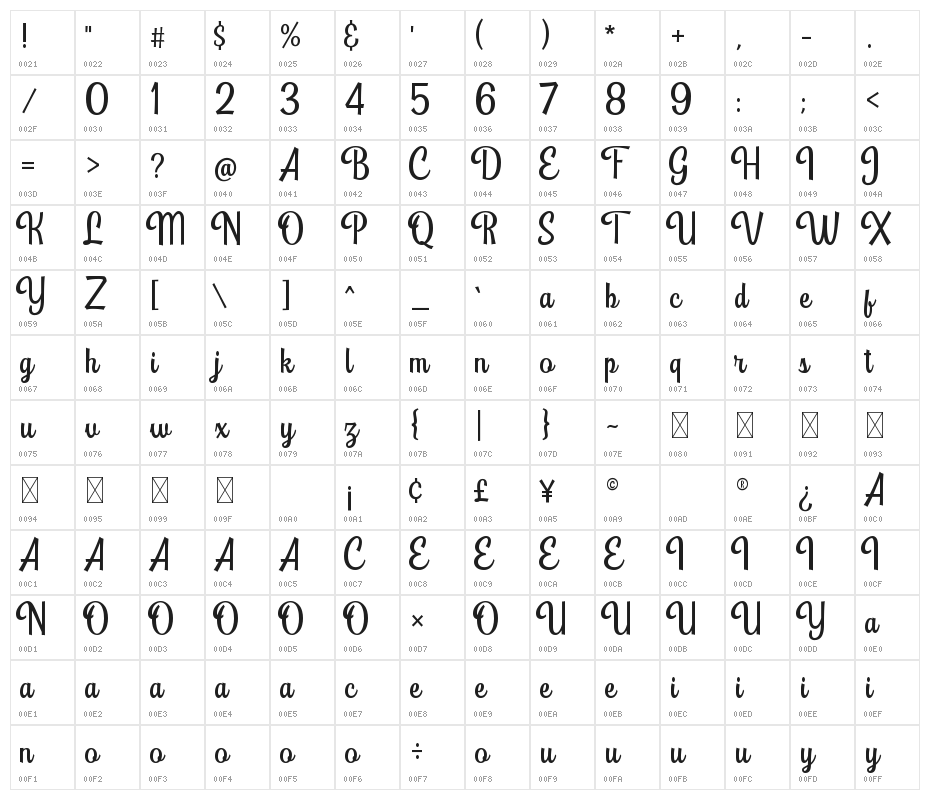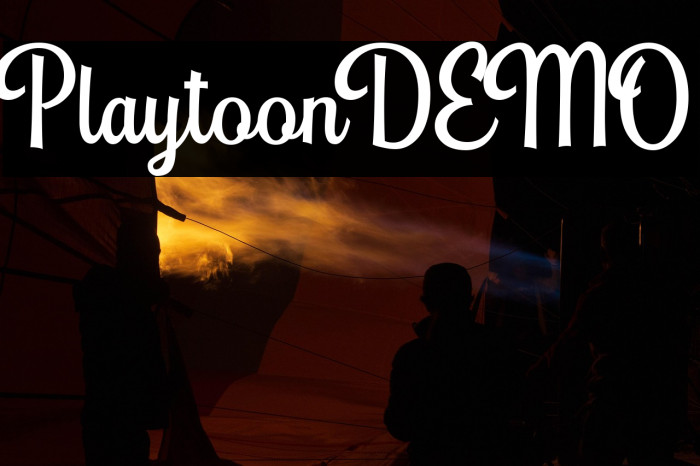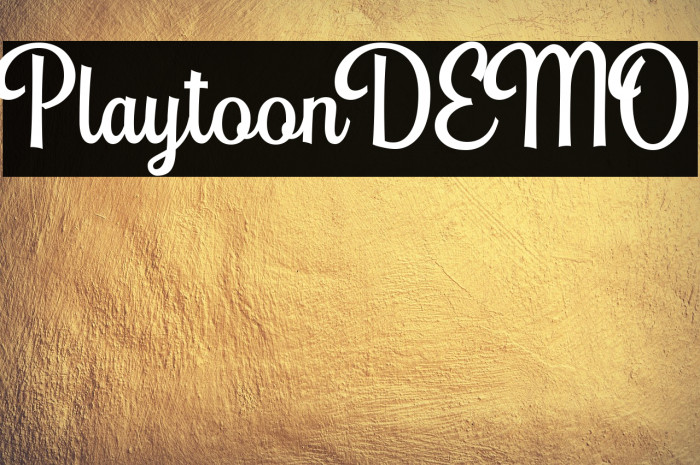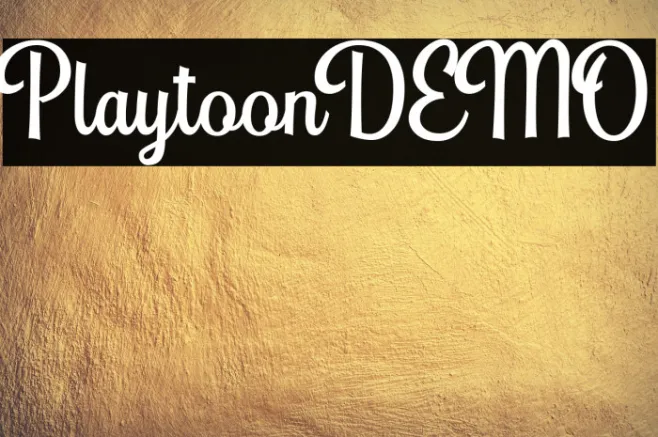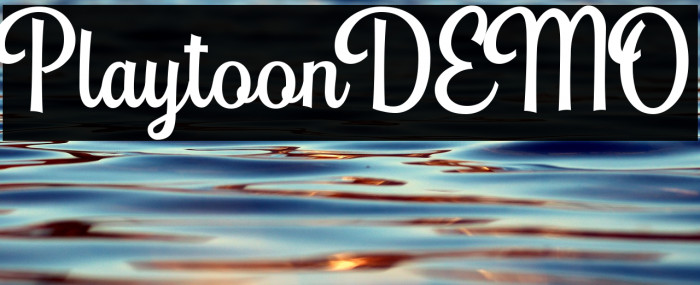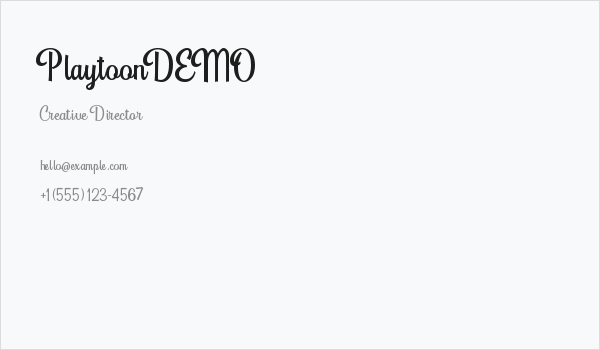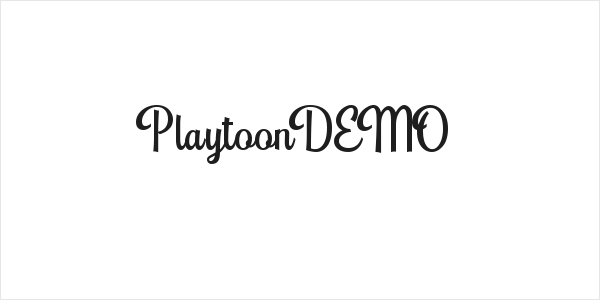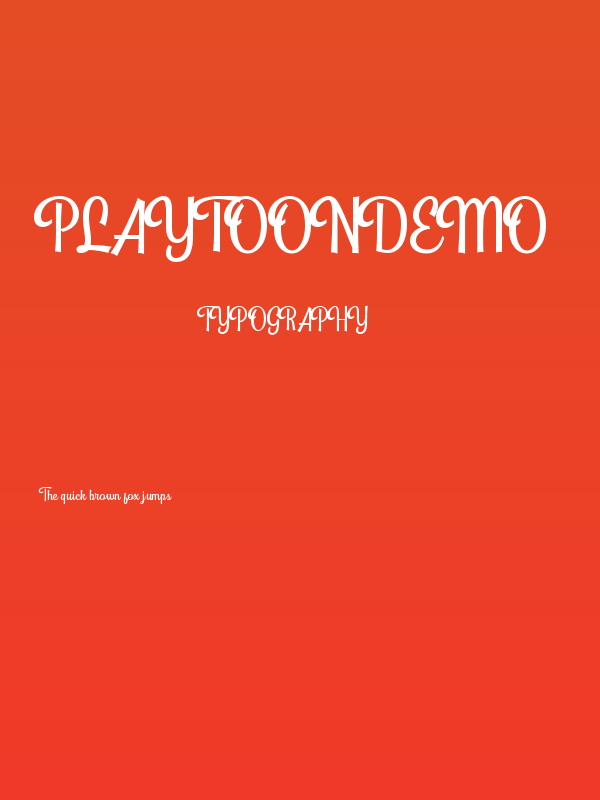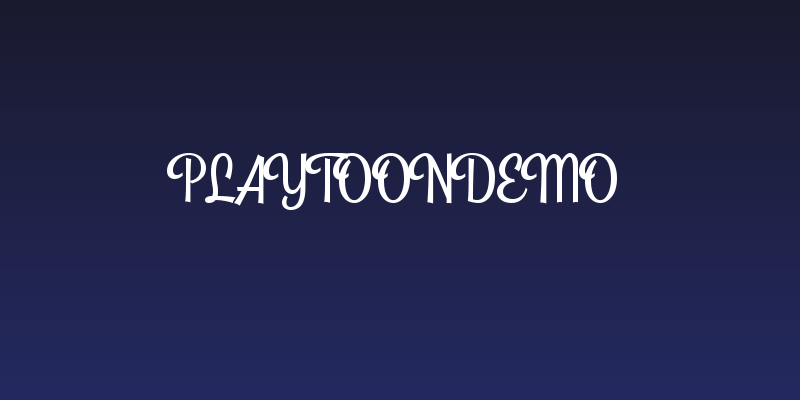
PlaytoonDEMO Font
PlaytoonDEMO Description
This playful and whimsical font features a unique blend of bold and flowing characters, creating a lively and engaging appearance. The uppercase letters are characterized by their tall, slightly curved forms, while the lowercase letters exhibit a more fluid and cursive style. The numerals are bold and rounded, maintaining the font's overall playful aesthetic. Special characters are creatively designed, adding to the font's charm. This font's distinctive style makes it ideal for projects that require a fun and informal touch.